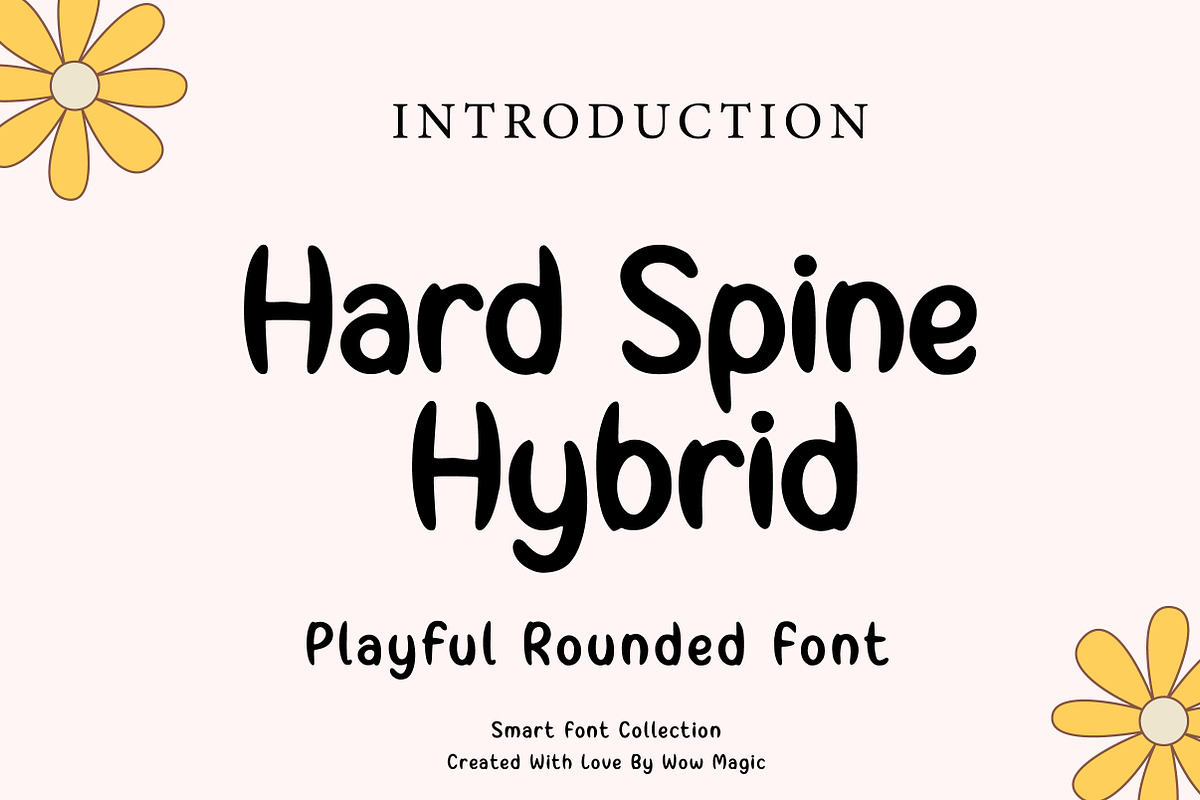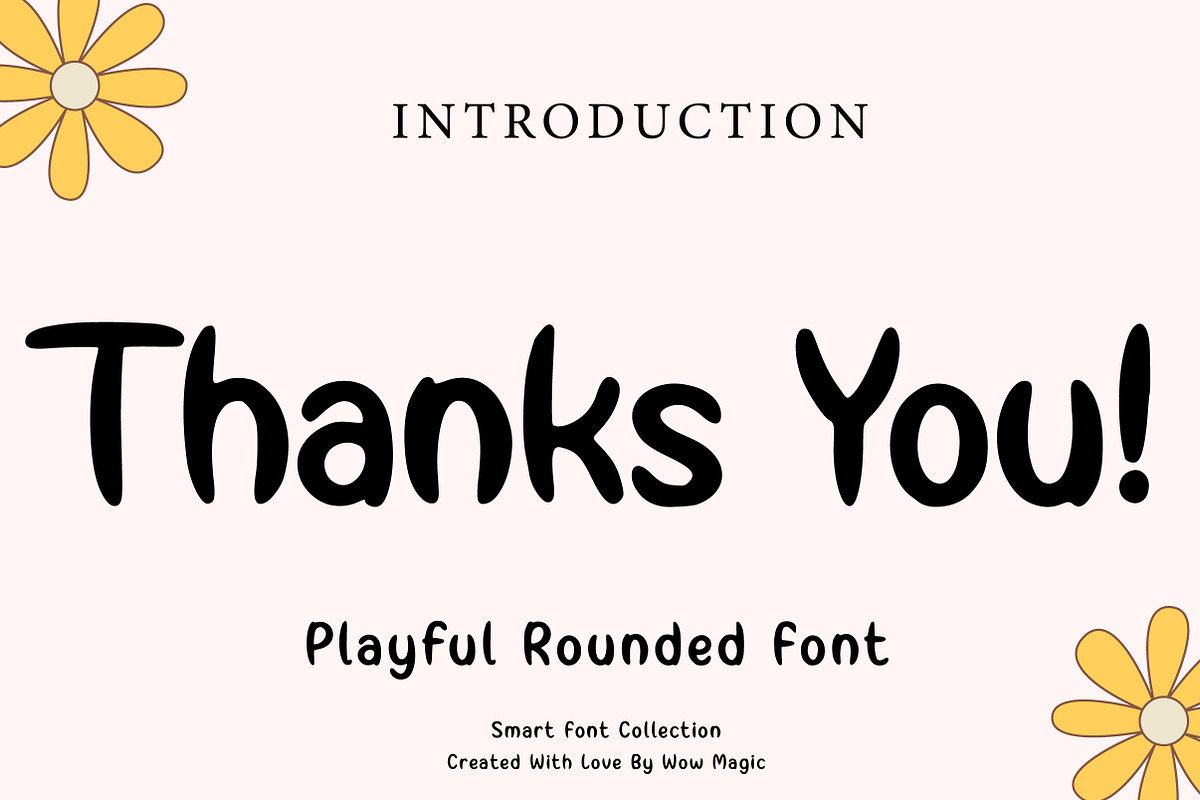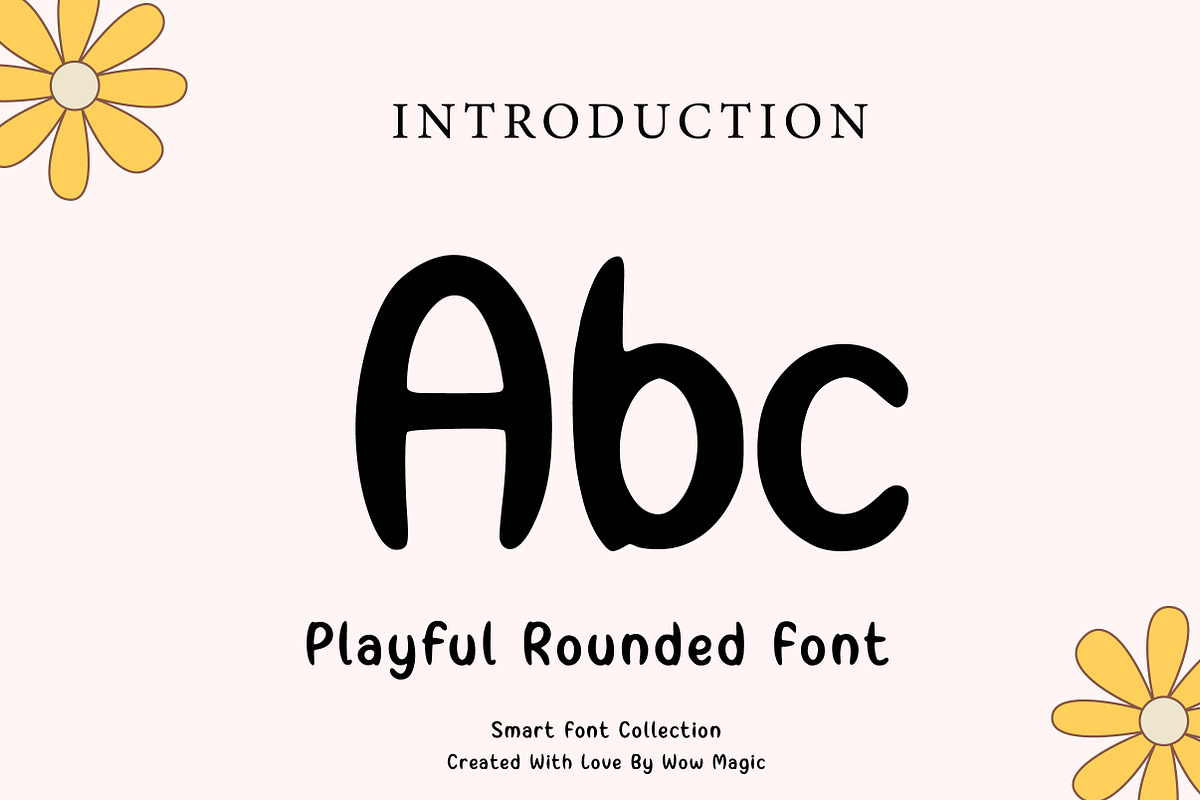
Hard Spine Hybrid
Hard Spine Hybrid is a chunky, playful display font with a bold handwritten feel and a strong “spine” structure that keeps every letter clear and impactful. Its rounded corners, thick strokes, and friendly bounce create a modern cartoon-style vibe—perfect for eye-catching titles and fun branding. The hybrid look blends casual hand-drawn energy with solid readability, making it great for both digital and print projects.
Perfect for kids designs, posters, logos, packaging, stickers, t-shirts, YouTube thumbnails, social media posts, game titles, and playful brand identities. Hard Spine Hybrid stands out instantly in headlines and large text, giving your designs a confident, cheerful personality.
If you want a bold, cute, and high-impact font for fun projects, Hard Spine Hybrid is a perfect choice.